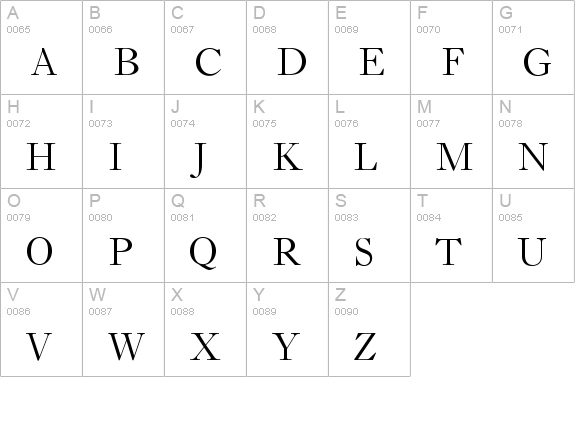
CaslonC37-Light Font Details
CaslonC37-Light is a refined, elegant variant in the CaslonC37 typeface family \xE2\x80\x94 well suited to elegant body text, refined sub-headings, and luxury branding.
CaslonC37-Light is a classic and elegant serif font that exudes sophistication and timelessness. With its delicate serifs and graceful letterforms, this font is perfect for adding a touch of refinement to any design project. Whether used for body text or headings, CaslonC37-Light conveys a sense of tradition and elegance. Best of all, CaslonC37-Light is completely free to download at FontsMarket.com, making it accessible to designers and creatives looking for a high-quality serif font without breaking the bank. Its versatility and readability make it a popular choice for a wide range of design applications, from print materials to digital projects. Enhance your designs with the timeless beauty of CaslonC37-Light, available for free at FontsMarket.com.